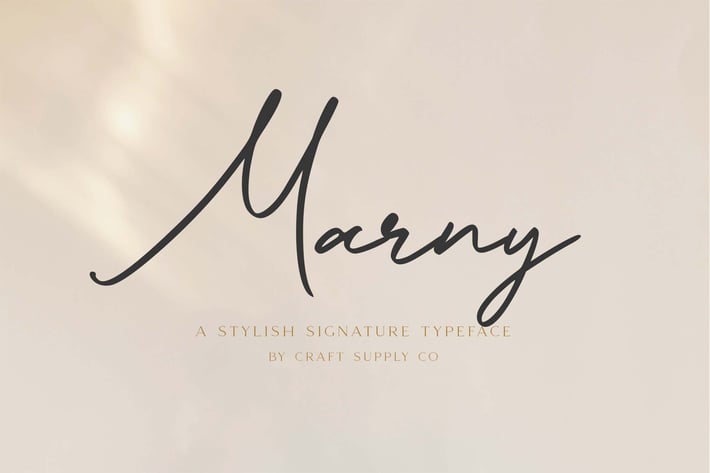
Marny - Stylish Signature Typeface
Introducing New Font : Marny - Stylish Signature Typeface
Marny - Stylish Signature Typeface is a digital script typeface influenced by signature ambience. Marny - Stylish Signature Typeface will work perfectly for fashion, e-commerce brands, trend blogs, wedding boutiques or any business that wants to appear upscale and chic.
Marny - Stylish Signature Typeface also Suitable for Logo, greeting cards, quotes, posters, branding, name card, stationary, design title, blog header, art quote, typography, art, modern envelope lettering or book design, happening style like handdrawn design or watercolor design theme, craft design, any DIY project, book title, or any purpose to make your art/design project look pretty and trendy.
Stylistic Alternates
Standard & Special Ligatures